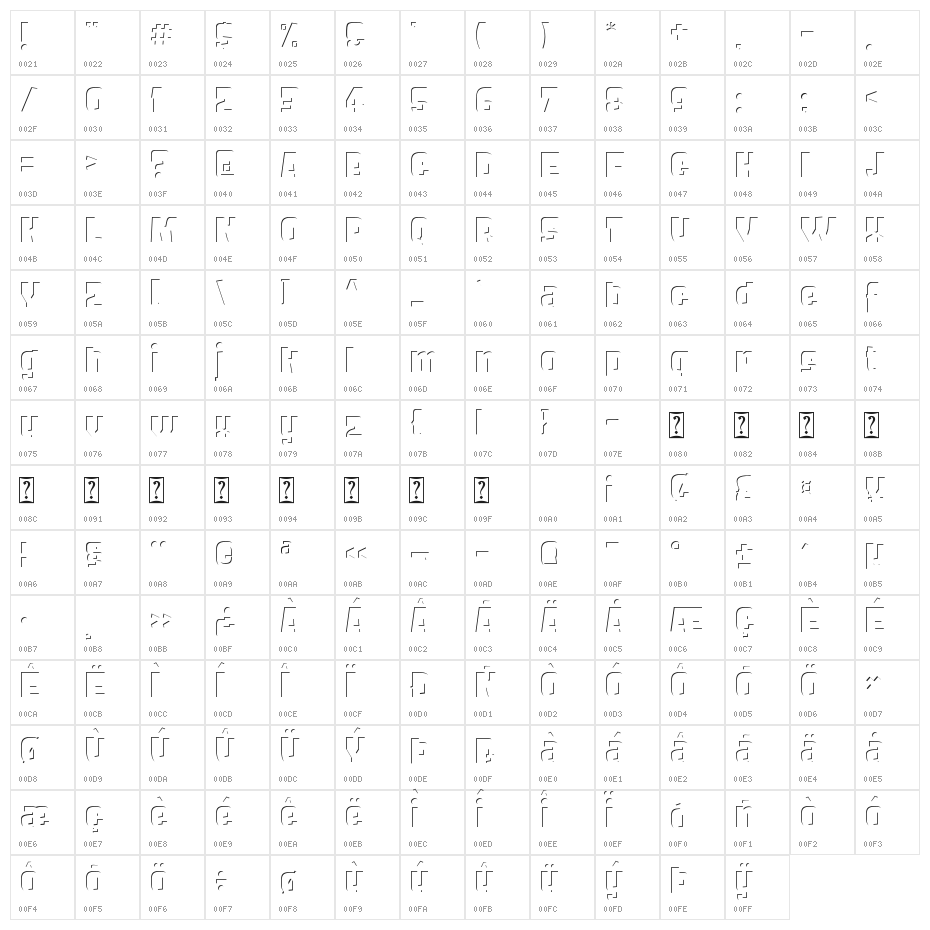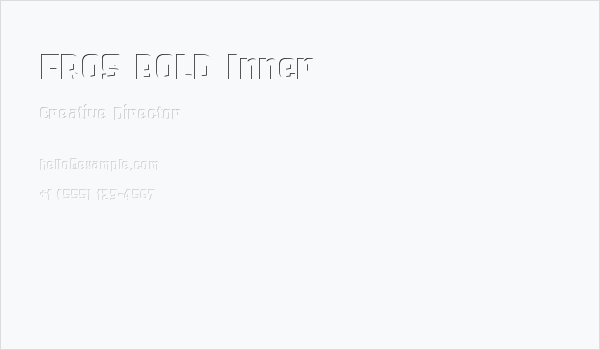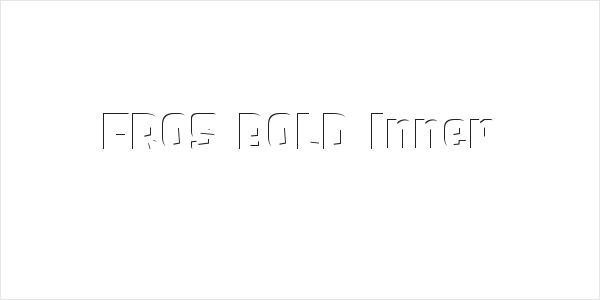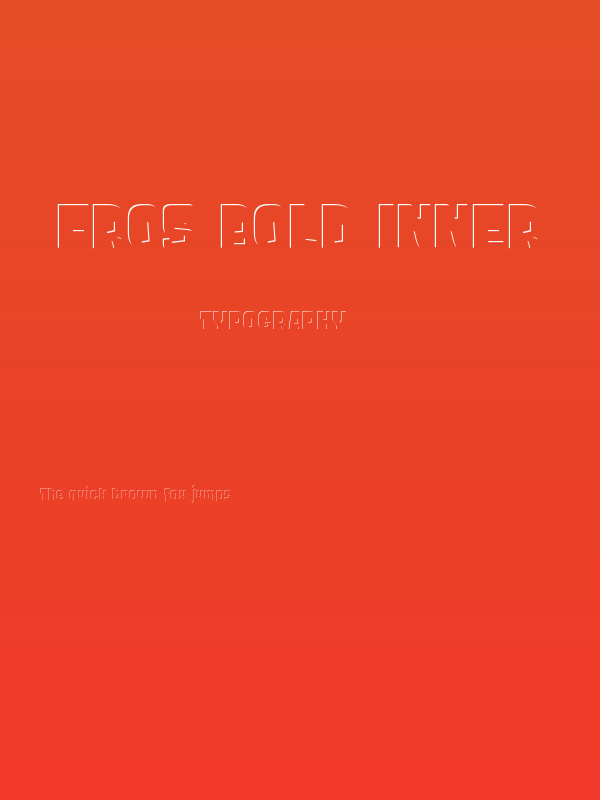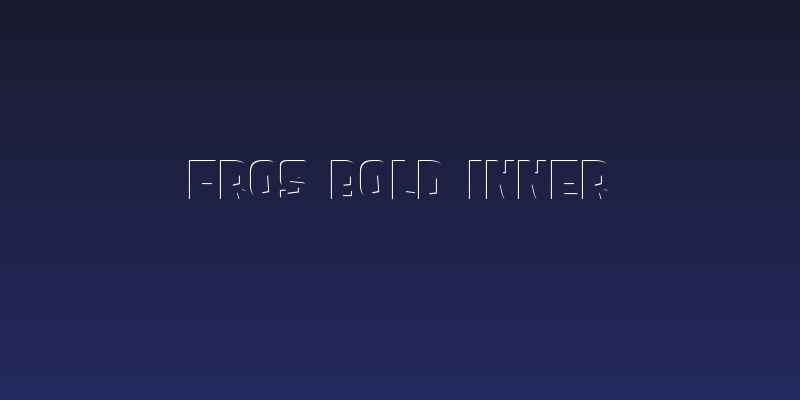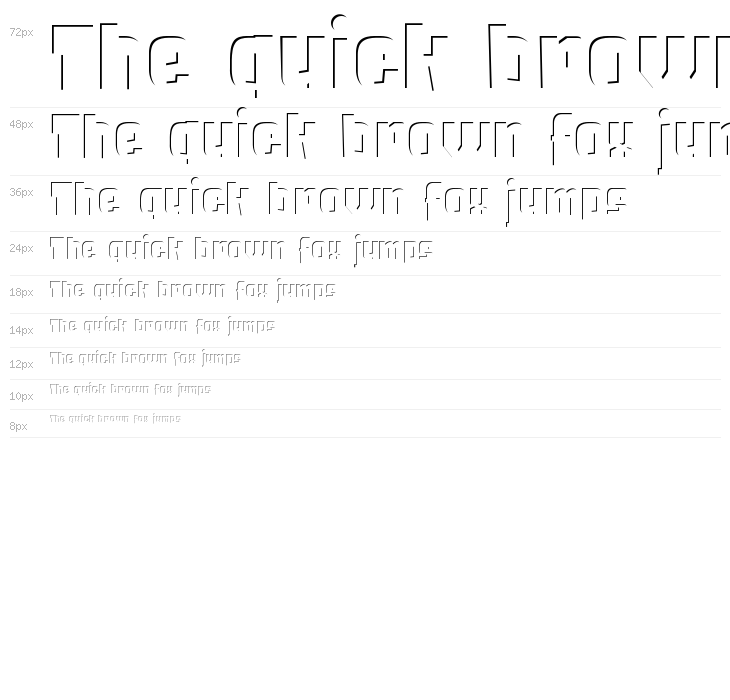
FROS BOLD Inner Font
FROS BOLD Inner Description
This font features a bold, geometric design with a distinct stencil-like appearance. The characters are constructed with clean, angular lines and deliberate gaps, giving it a modern and industrial feel. The uppercase and lowercase letters maintain a consistent style, with sharp edges and uniform stroke widths. Numbers and special characters follow the same design principles, ensuring a cohesive look across all glyphs. The font's unique cut-out sections add an element of intrigue and make it stand out in any design project.
| Proposed Projects | Ideal for branding, poster design, and signage where a modern, industrial aesthetic is desired. |